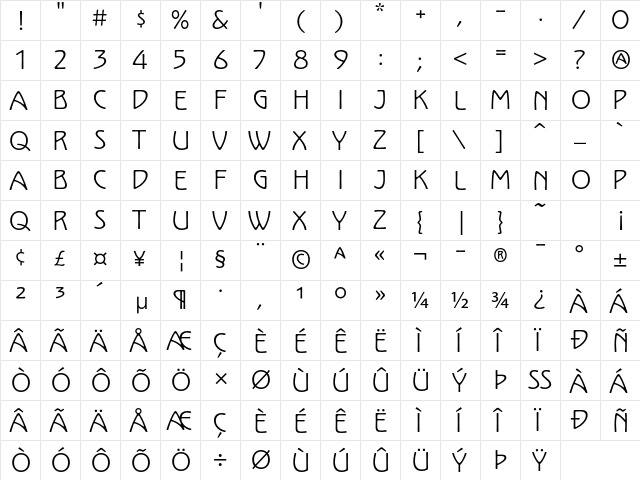
Kolo LP Std Regular
| Designer | Paul Shaw |
Kolo LP Std is a composed and adaptable typeface that performs quietly and consistently across a wide range of design contexts.
Pro Tip: Use Kolo LP Std in both headline and body roles to test its range before committing to a single application.